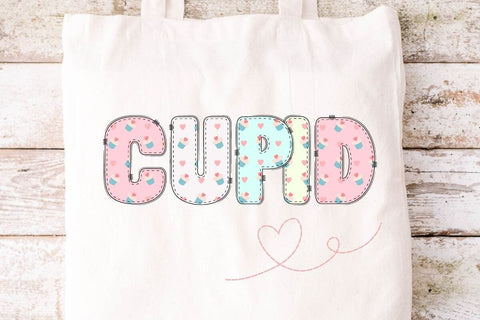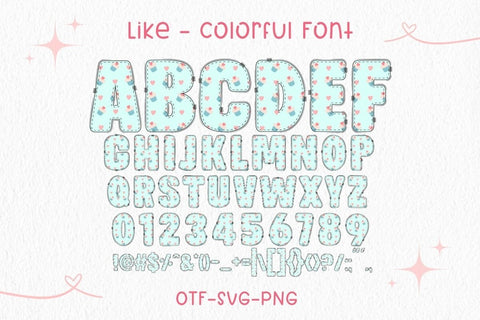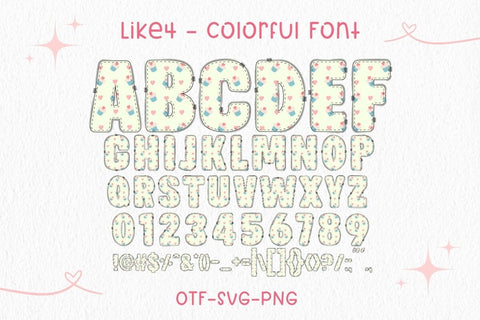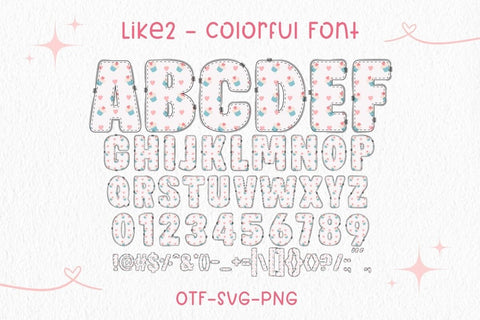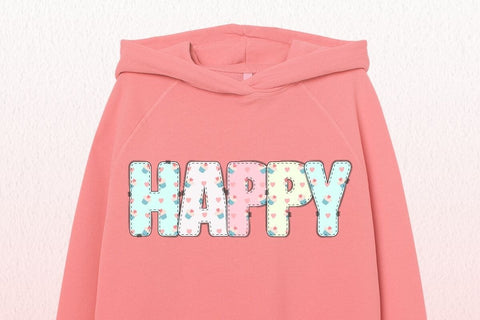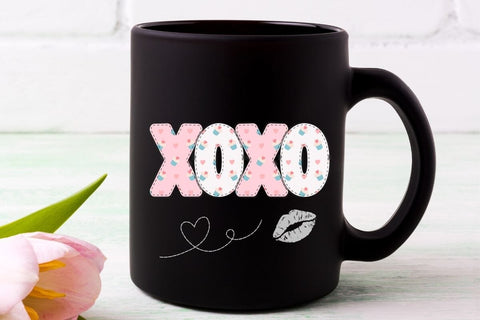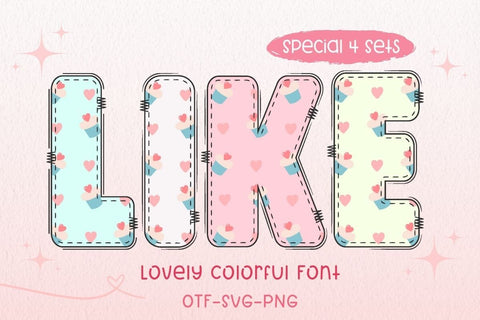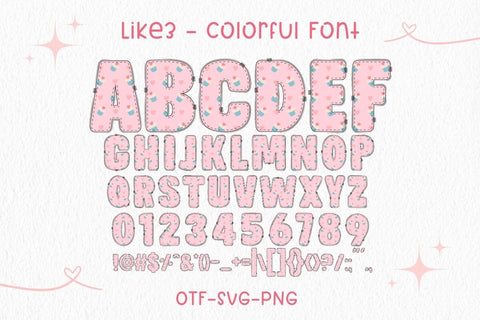
Like - Color Font
Like Font is a fun and lovable colorful font set featuring 4 unique pastel styles filled with cupcakes and hearts! Each set comes in OTF, SVG, and PNG formats – perfect for crafting, apparel, mugs, Valentine's gifts, and more!